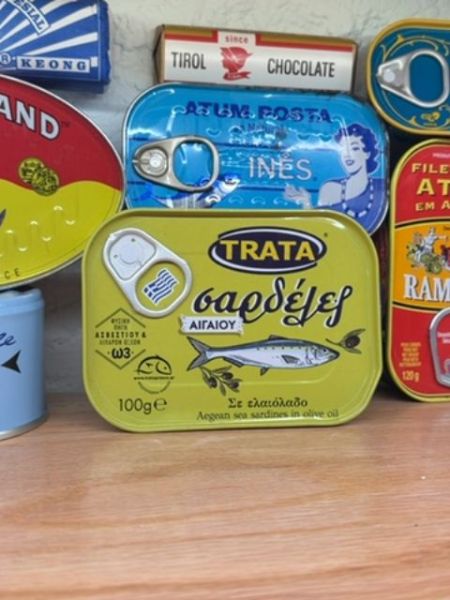
TRATA Sardines
Aegean sea sardines in olive oil.
Typography
The typography on the packaging features a mix of bold sans-serif and traditional serif fonts. The brand name 'TRATA' is displayed in a bold, uppercase sans-serif font within an oval shape, creating a strong brand presence. The product name in Greek uses a flowing script-like font that adds a traditional and authentic feel.
Packaging
The packaging is a compact, rectangular tin with a pull-tab lid, featuring bold and colorful design elements. The predominant color is a bright olive green, accented with illustrations and product information displayed prominently.